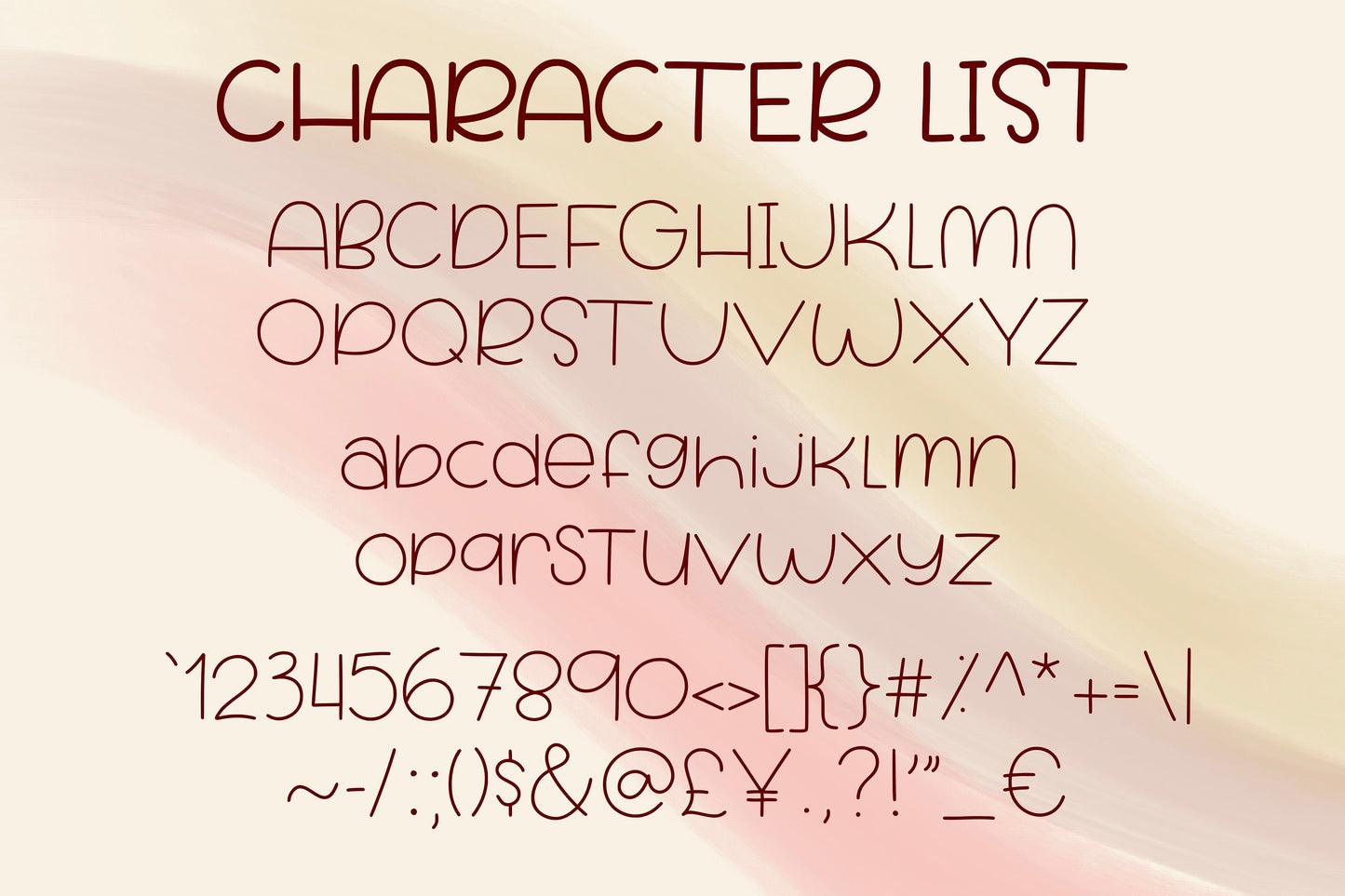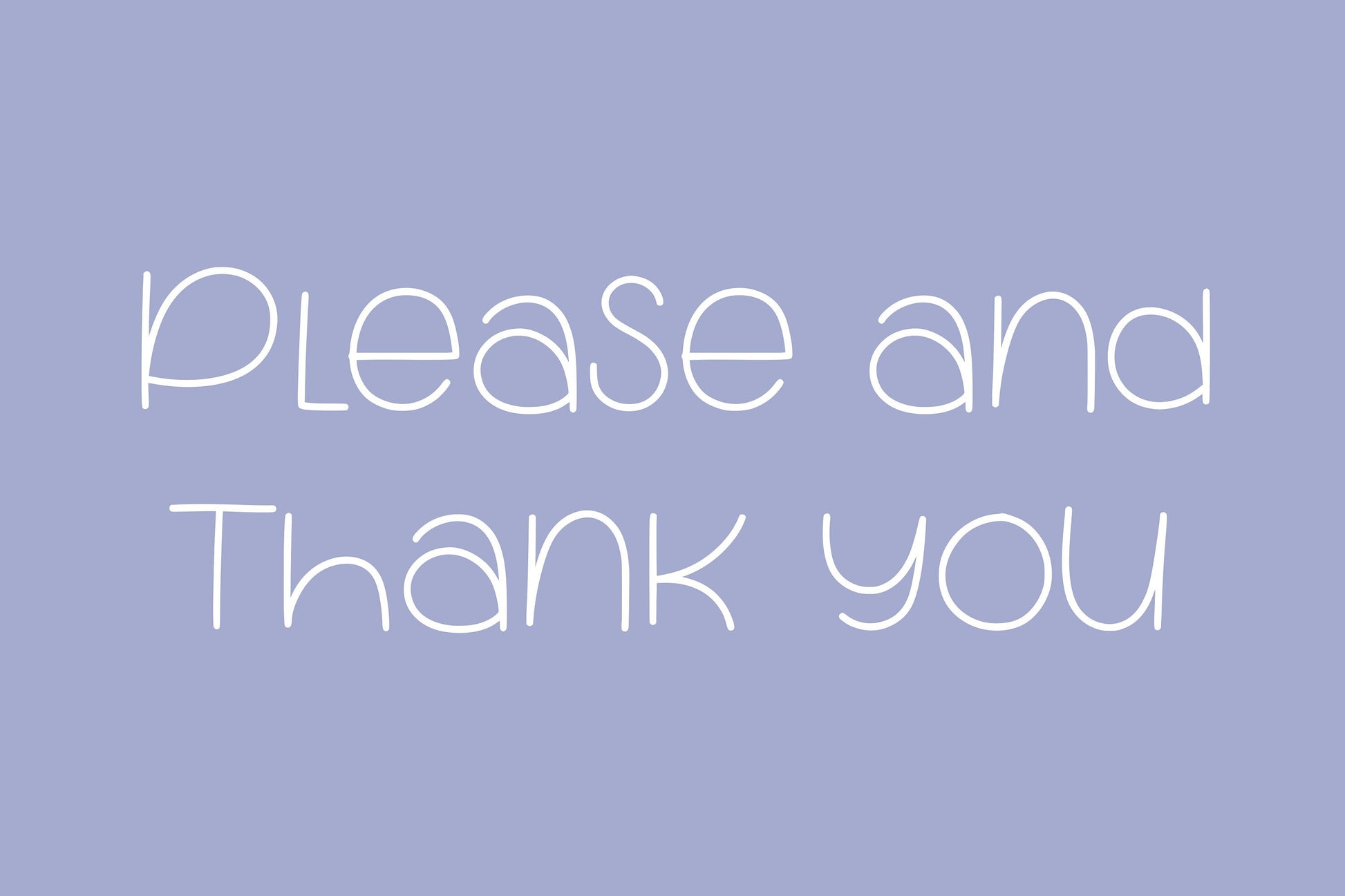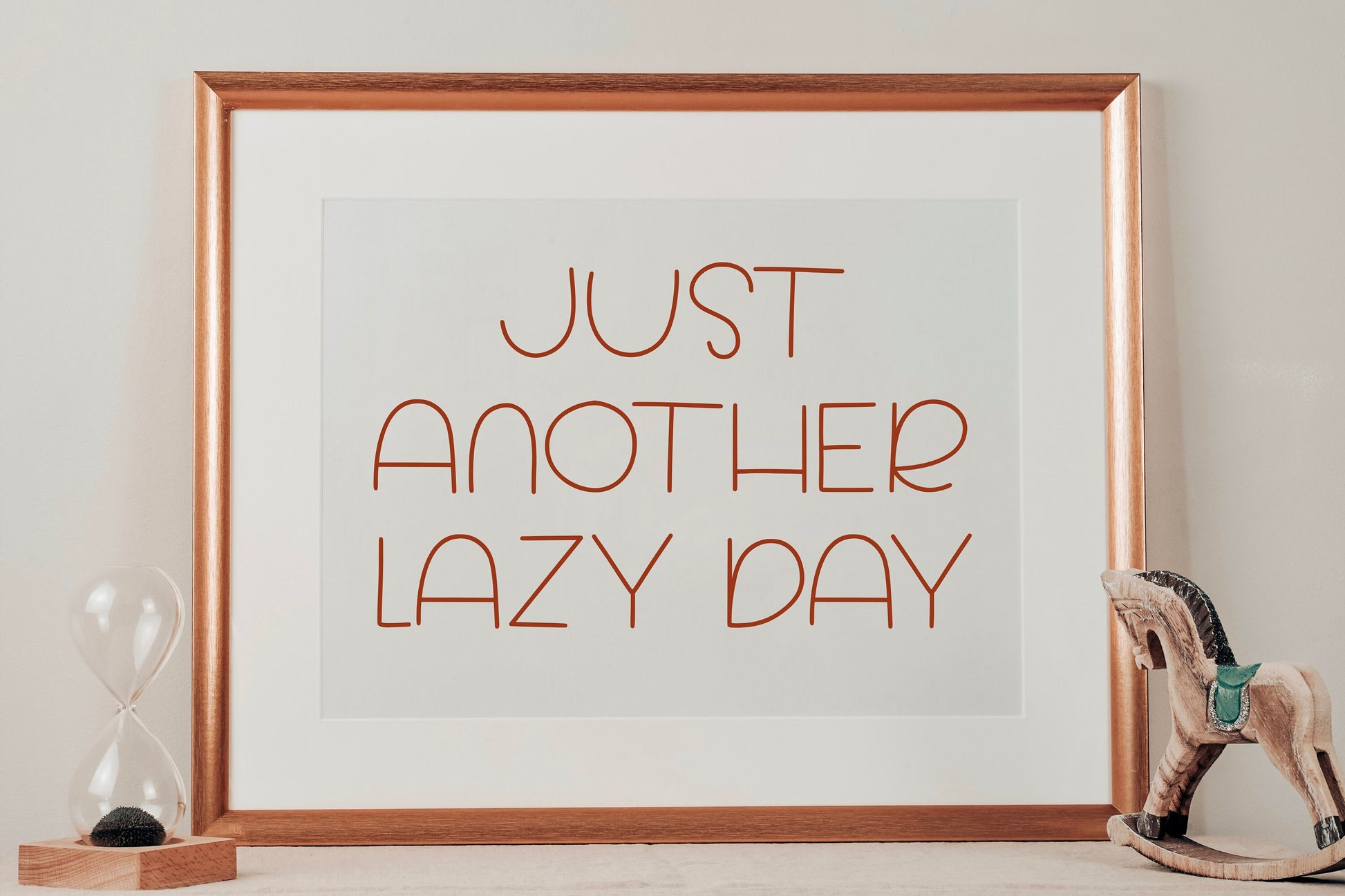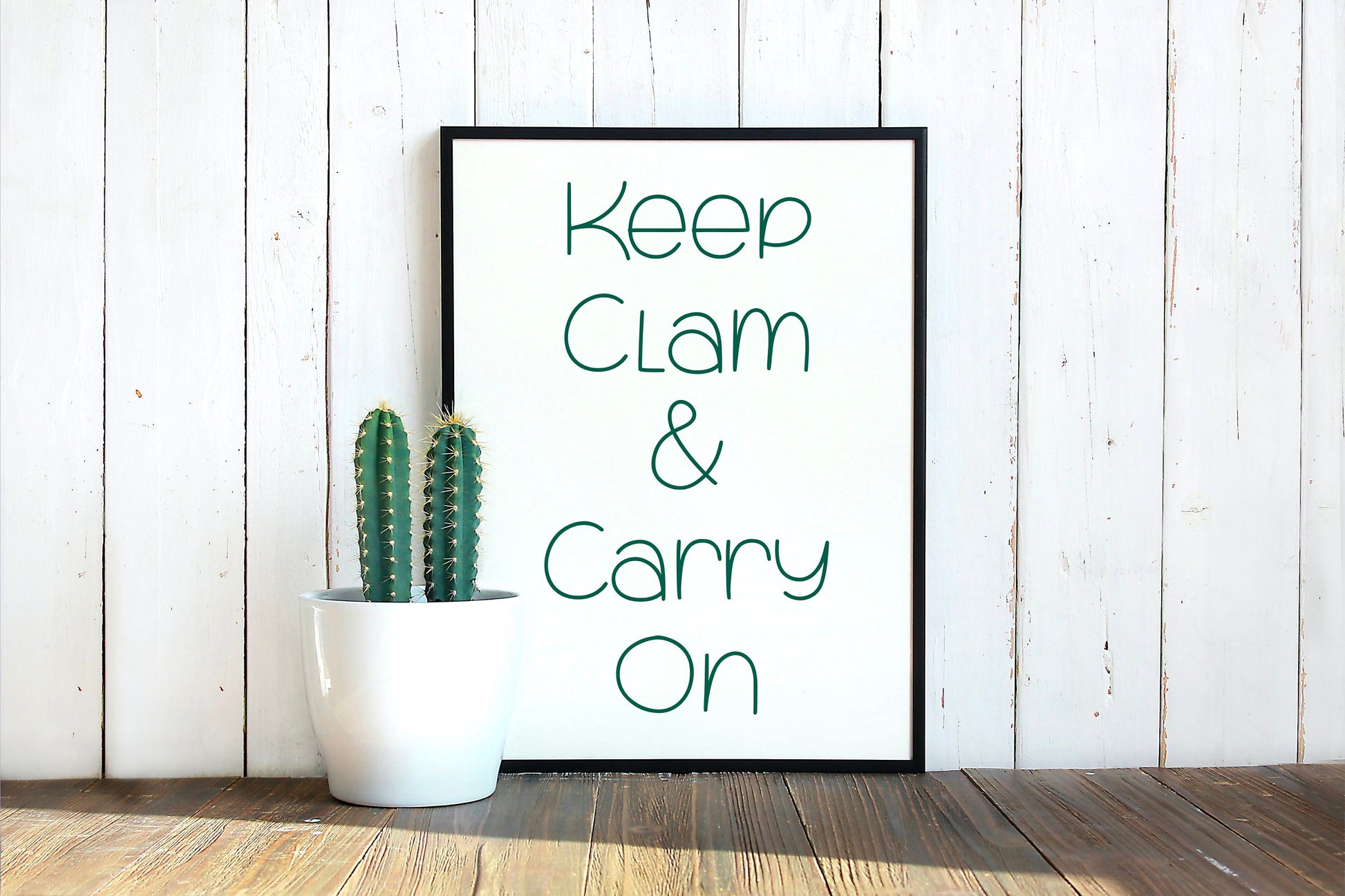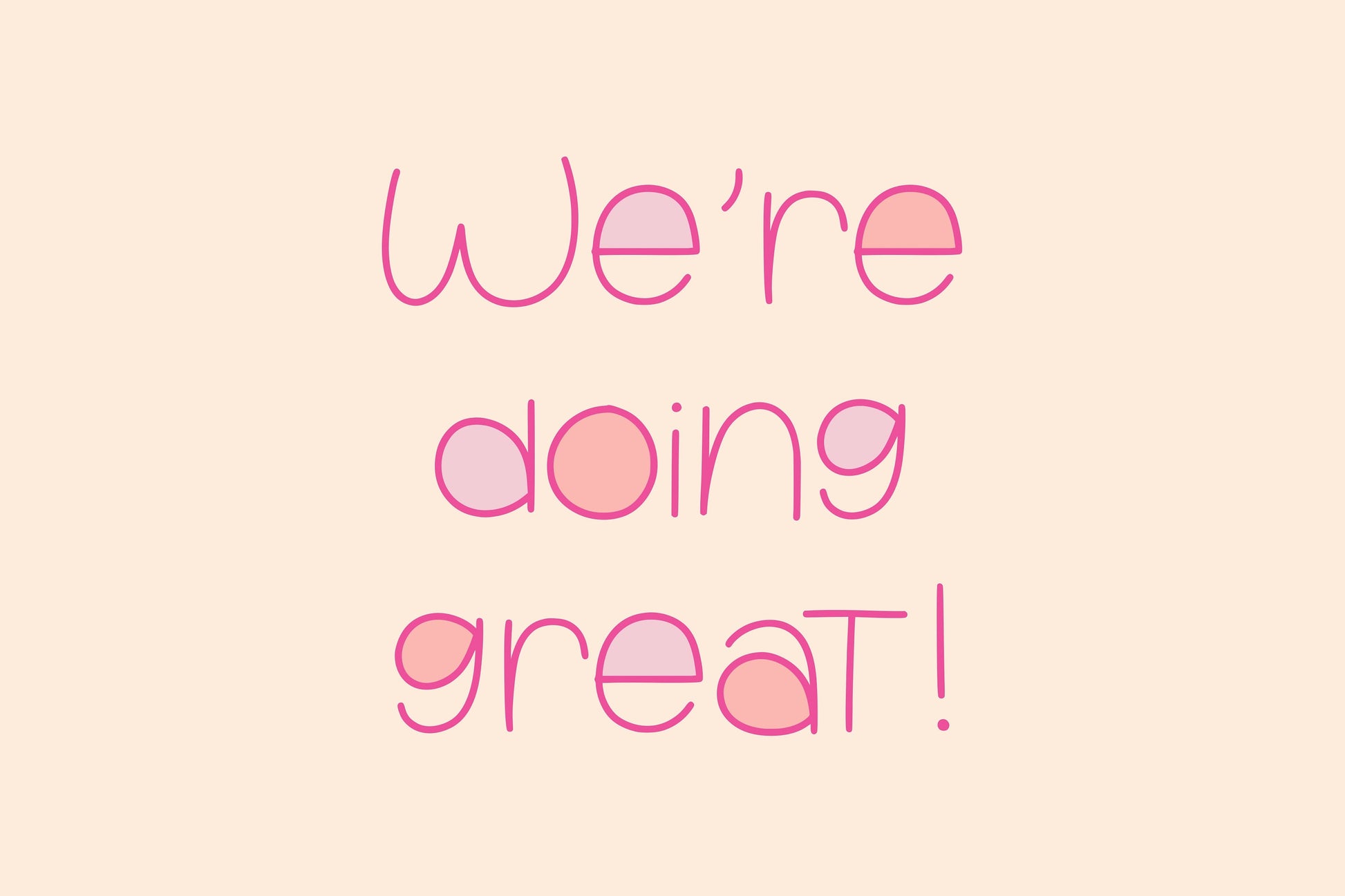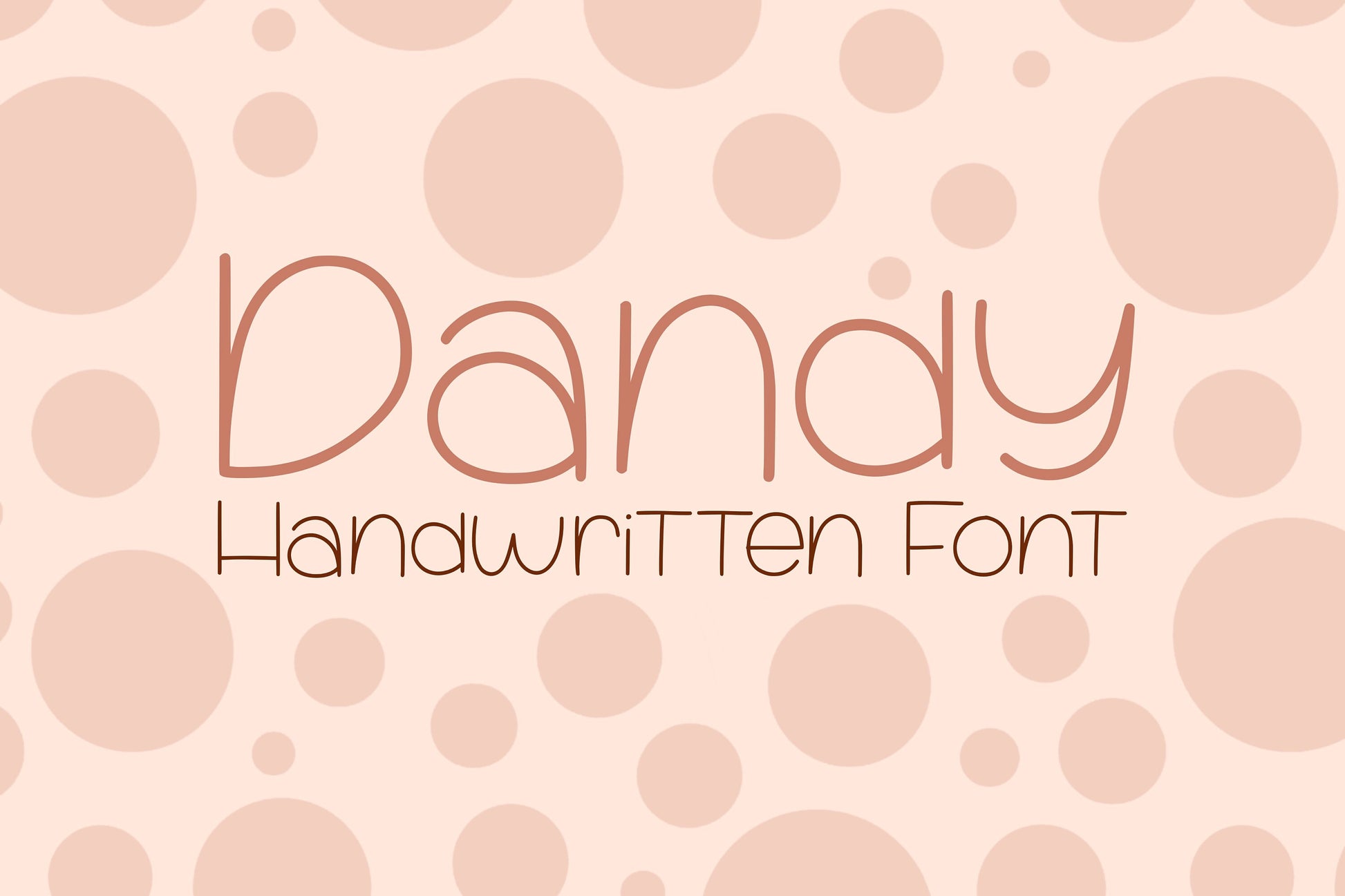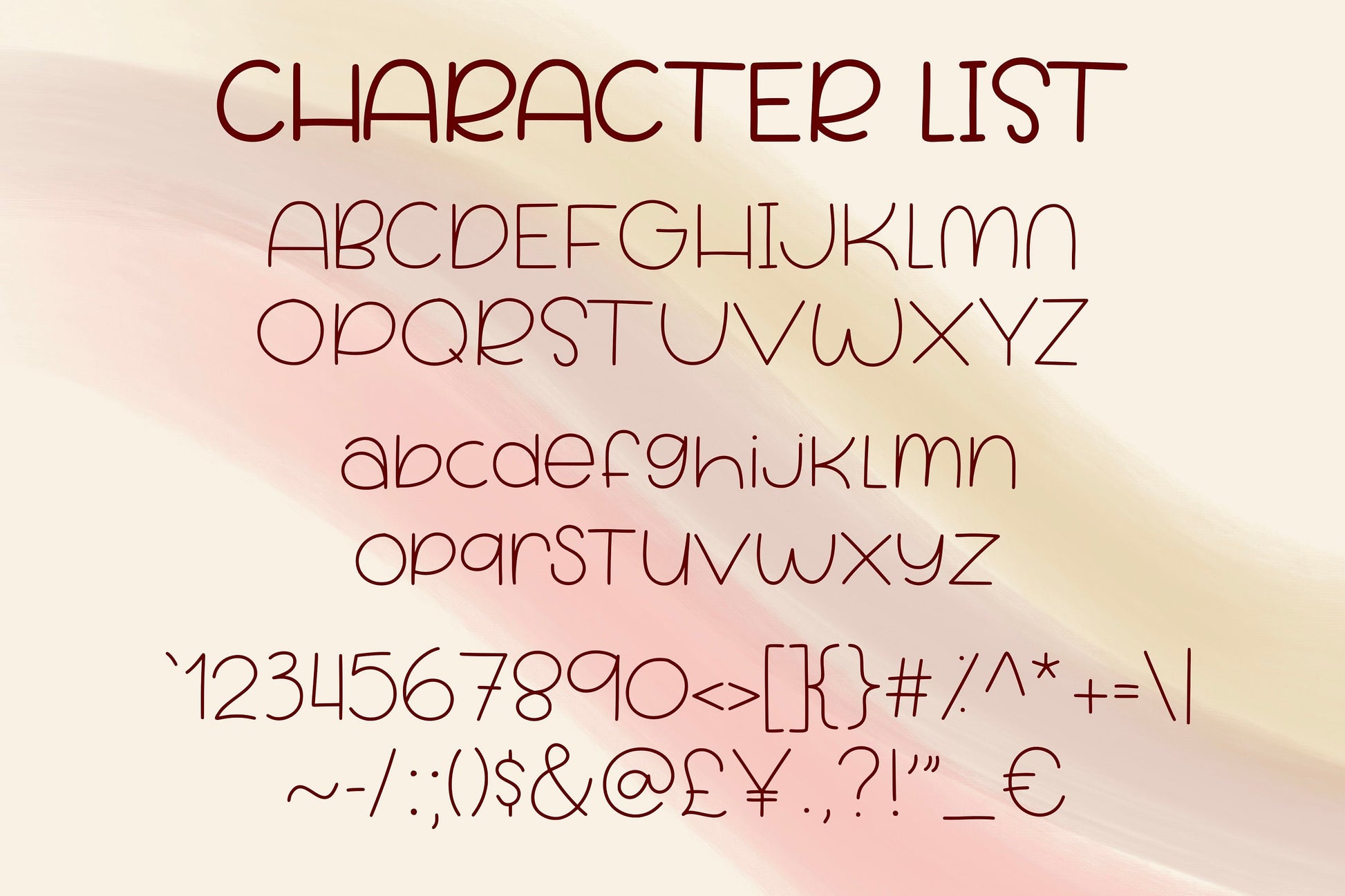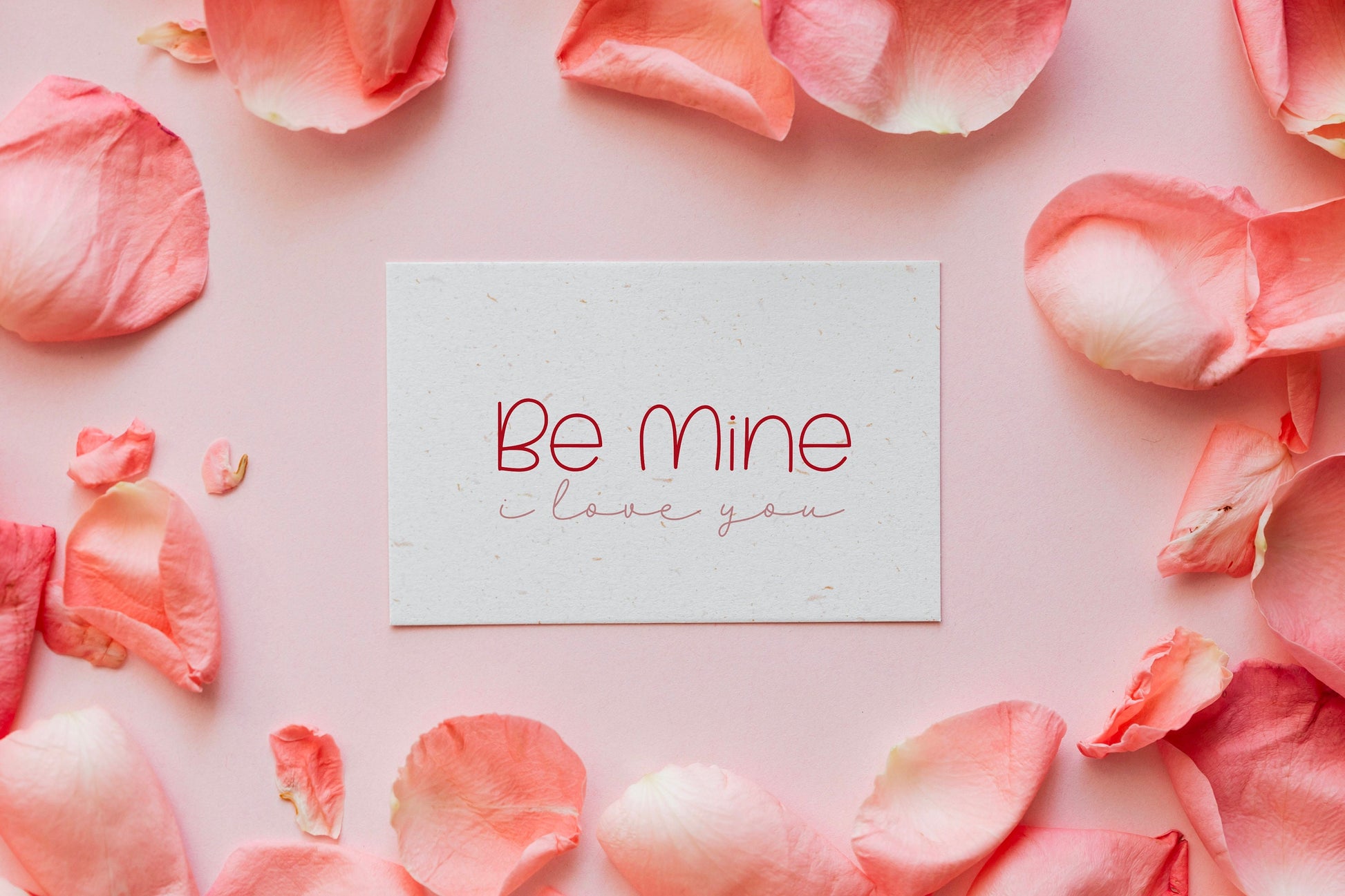
Dandy Handwritten Font
This is my Dandy handwritten/hand drawn font. This unique font will add a fun, quirky, handmade touch to your design! Perfect for stickers, designs, posters, magazines, logos, branding, quotes, and even more!